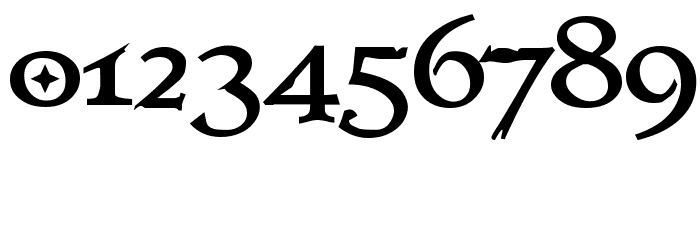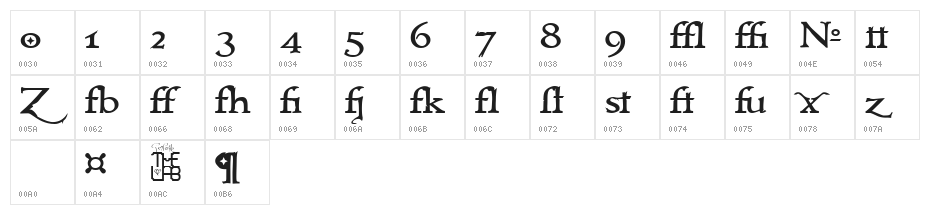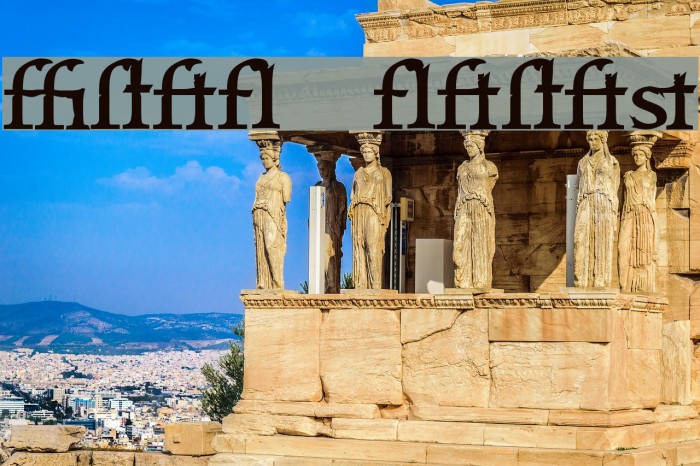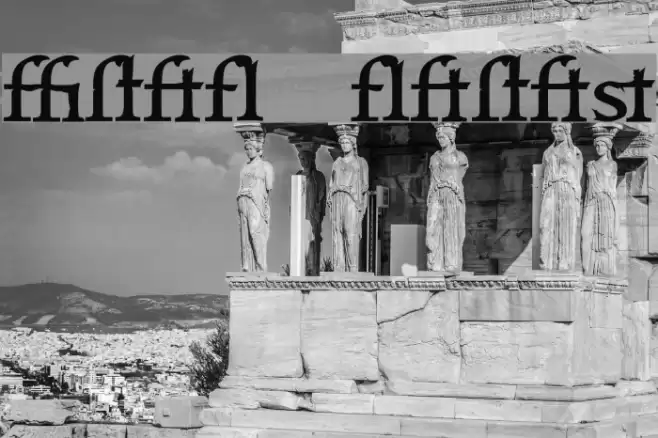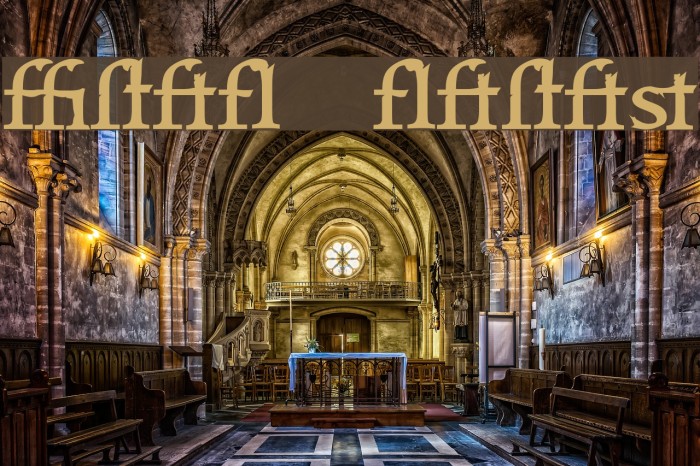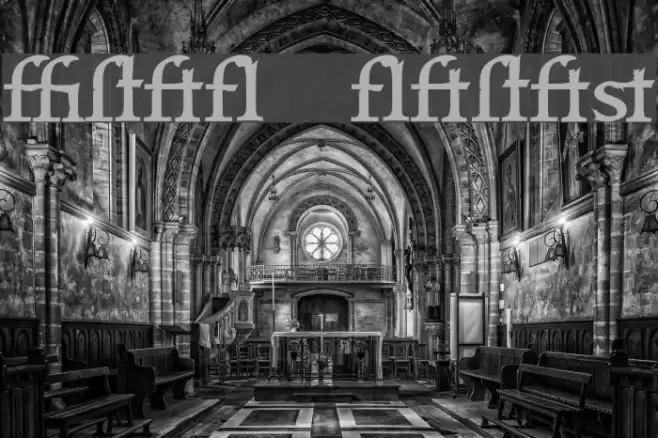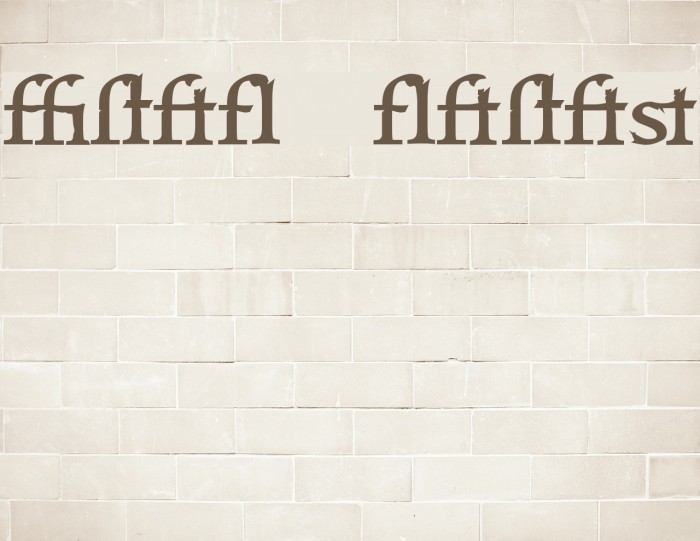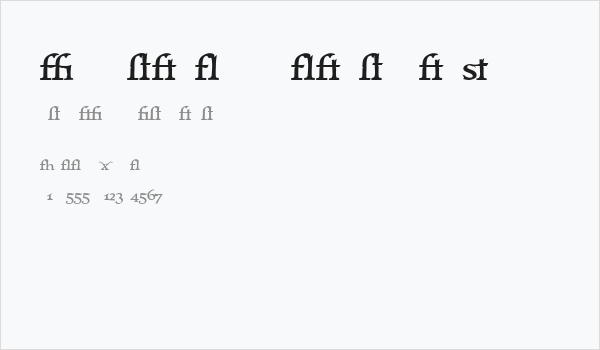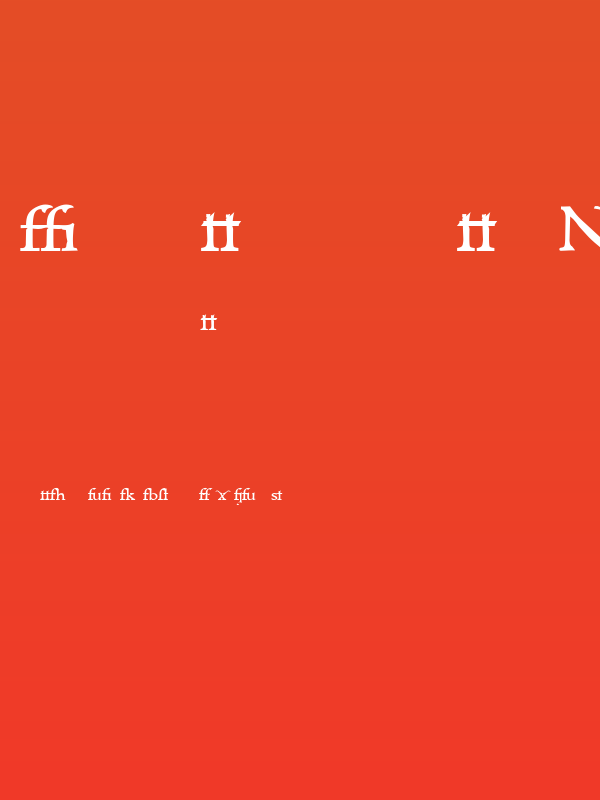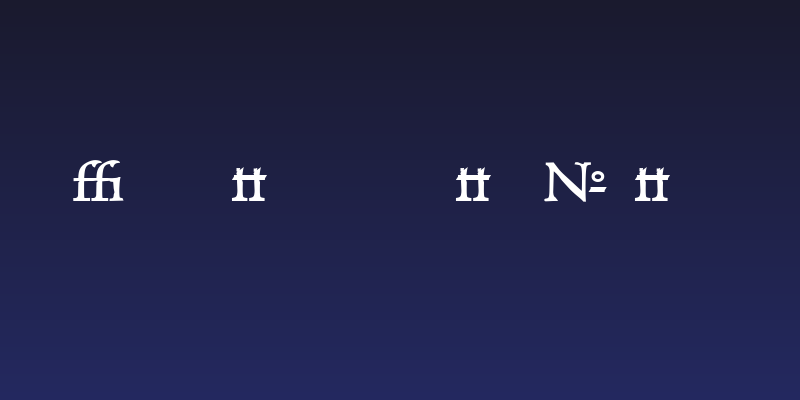
Immortal - Alternates Font
Immortal - Alternates Description
This font features a unique and artistic design with a medieval flair, characterized by its decorative and elaborate letterforms. The characters exhibit a high degree of ornamentation, with flourishes and extended serifs that give it a distinct, historical appearance. The numerals and special characters maintain this ornate style, contributing to a cohesive and visually striking typeface. The font's intricate details and stylized elements make it suitable for projects that require a touch of elegance and antiquity.
| Proposed Projects | Ideal for historical themed designs, fantasy book covers, medieval event invitations, and decorative posters. |